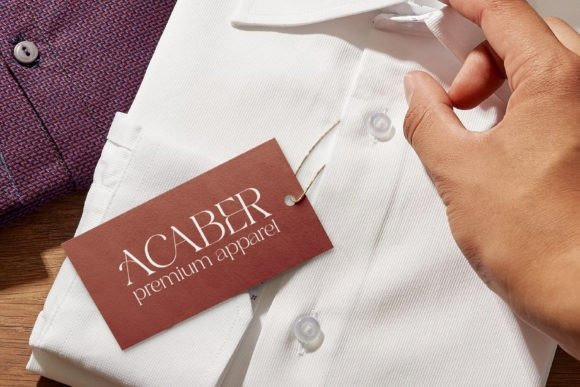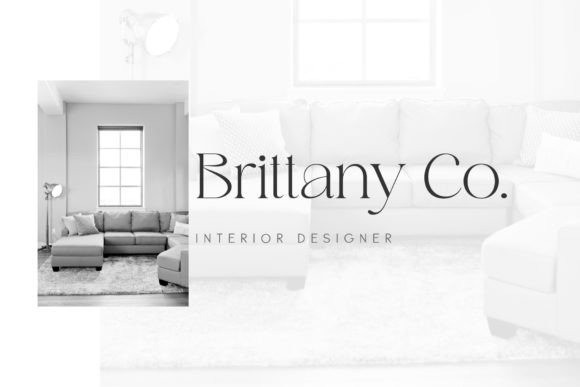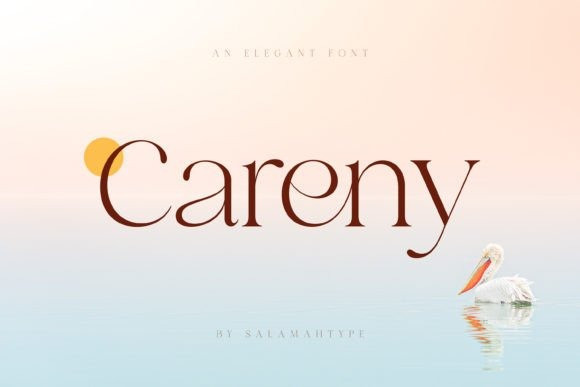
Careny Font
Careny Font is an elegant and modern serif typeface. This typeface has a refined look due to its sleek shape and perfect curves. Its modern aesthetic lends a touch of sophistication to any project, from magazine layout to logo branding. Careny is the ideal choice for anyone looking for a versatile and fashionable typeface that effortlessly blends traditional elegance with modern design.